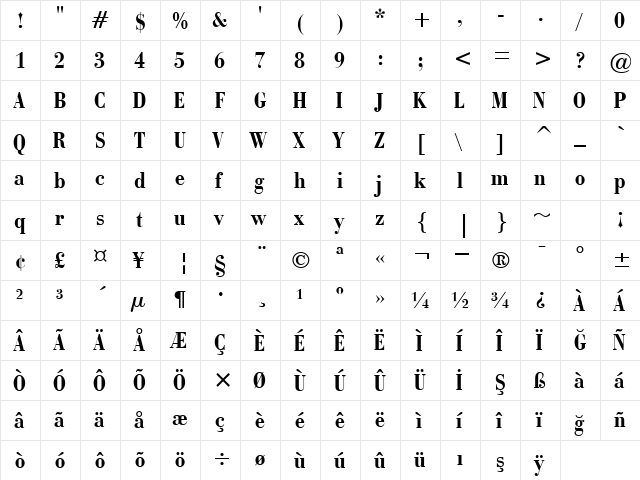
00379 Regular Font Preview
00379 Regular
00379 Regular Font Details
Design Context for 00379 Typeface
00379 is a composed and adaptable typeface that performs quietly and consistently across a wide range of design contexts.